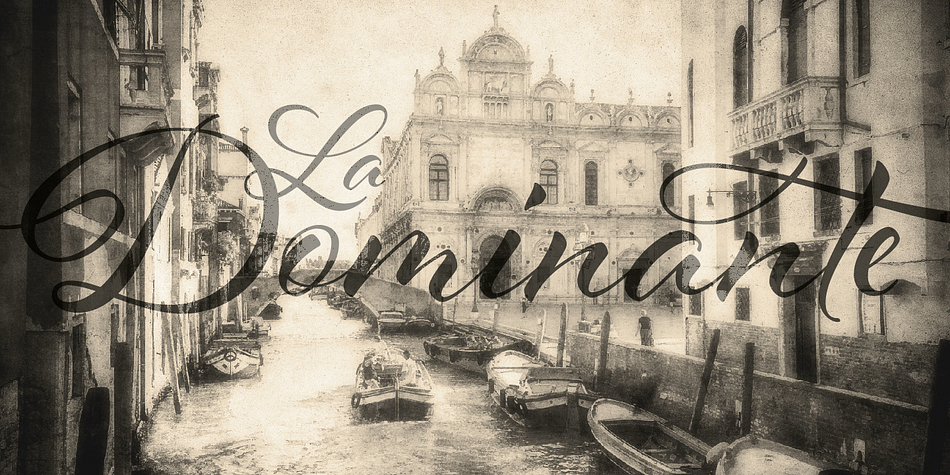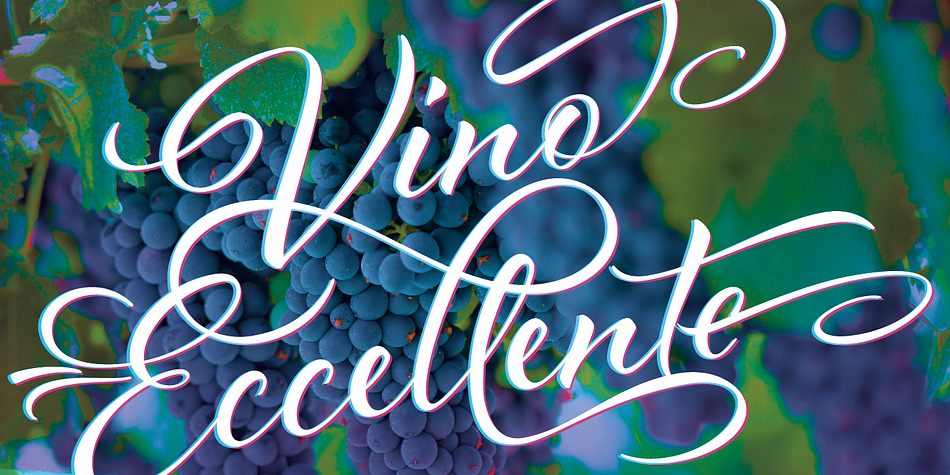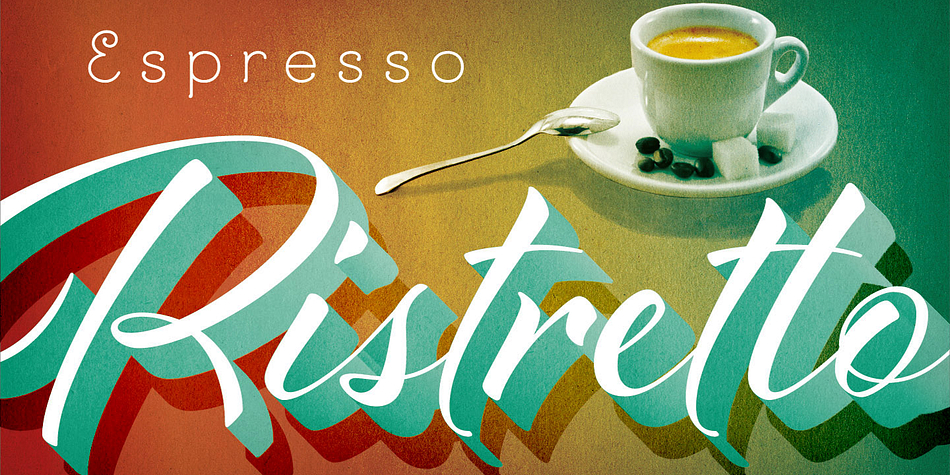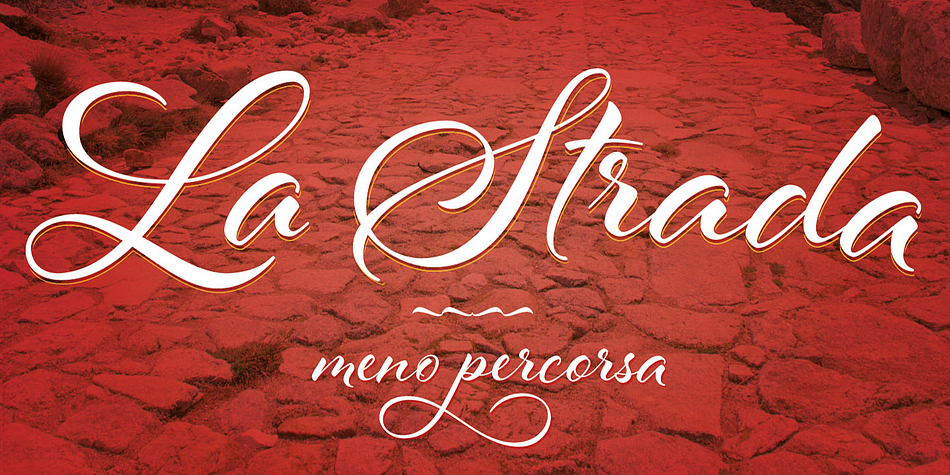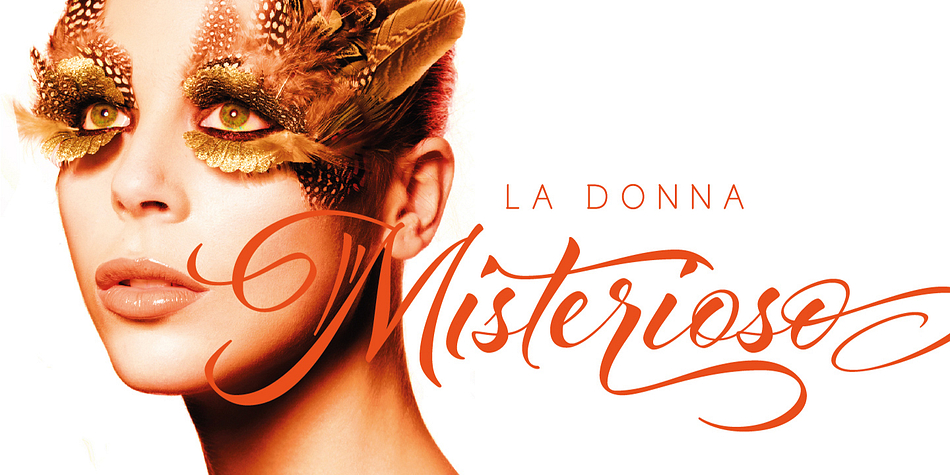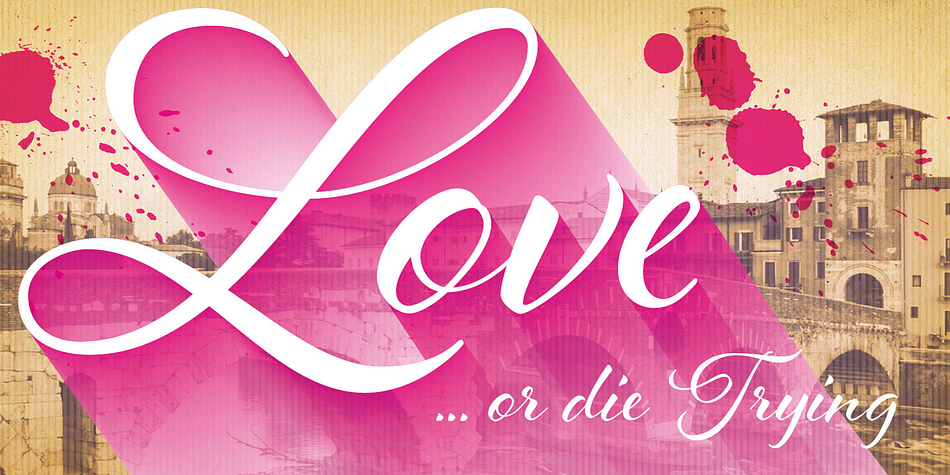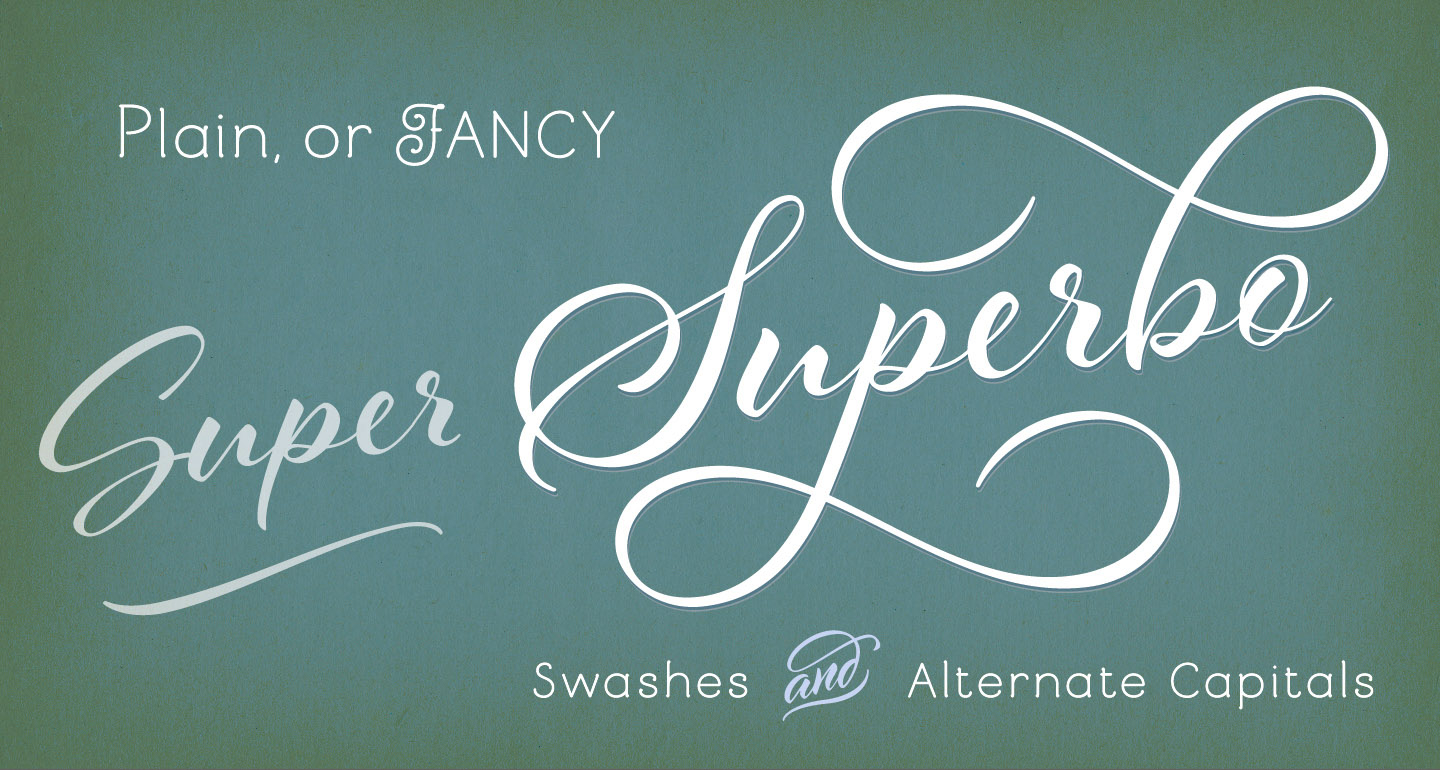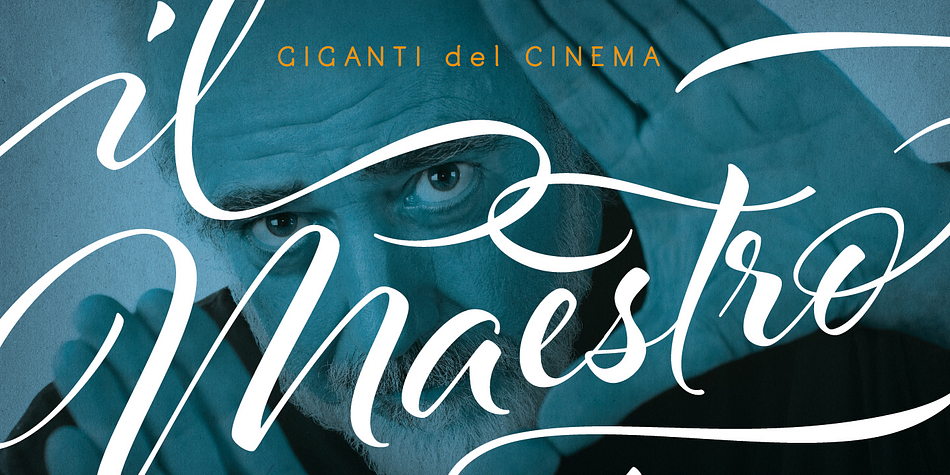
Al Fresco is a script and modern calligraphy font family. This typeface has two styles and was published by Laura Worthington.
Al Fresco is a breezy, light, yet expressive typeface perfect for packaging products and titling work that call for a youthful, delectable flair. Its elegance carries a subtle earthiness; its beauty is unconventional, both stylish and exuberant. Al Fresco is made even more versatile when titling is activated (in the OpenType palette,) served along with swash forms, contextual alternates, and ornaments to sweeten this tasty typeface.
As with my other type designs, Al Fresco doesn’t live in isolation, but evokes a special ambience, era, or lifestyle—in this case, an enviably carefree, chic, and organically trendsetting life, authentic and true to oneself and simply delicious. Naturally, each designer who uses my work filters it through their unique interpretation, imbuing the fonts with a wonderful array of results such as those found on menus, food packaging, branding for light colognes, or young, hip, clothing boutiques. Al Fresco was born in my imagination as an emblem of dining outside at twilight under twinkling lights, laughing warmly with friends, sipping signature cocktails and eating tapas—each bite dripping with intense flavor. In the workday setting, Al Fresco represents a style that is pretty but not dressy: swishy bright flowery skirts and cute little flats. “Business casual,” not cubicle prisoner. After all, Al Fresco comes from the 18th century Italian “in the fresh air.”
For those who are familiar with my Hummingbird typeface, Al Fresco has a more loose and unrestrained feel. I created it using faster strokes, and was unconcerned with convention. After the complexity of my Charcuteries family of typefaces, I longed for simplicity. I returned to simple tools: little felt brush pens with fixed tips, fun to use for practicing lettering. To loosen up after hours of intense design, I wanted to play with forms and tools that were refreshing and clean. Starting with the word “Irresistible,” I began filling pages with letters and words. While I usually start with lowercase letters, my initial focus with Al Fresco’s shape began with strong uppercase letters that set the tone for what I then realized would be my next typeface. While lowercase letters are used more frequently, making Al Fresco’s uppercase letters the focal point added an opportunity for variety and an unconventionality—it can’t really be attributed to any one style. That, in turn, colored the lowercase letters, allowing some “fresh air” into the design. Each word in a type specimen is distinctly different from the words alongside it. Each is a little bit unexpected.
Al Fresco, which includes a User’s Guide, makes ample use of Open Type features. If you activate titling, the loops have been removed from the lowercase ascenders and descenders, giving the typeface a cleaner aesthetic and more contemporary feel. This feature provides you with fonts that are almost a style within a style. 157 lowercase swash forms, 46 ligatures (most of which are purely decorative rather than functional), and 16 ornaments are the cherry on top—or in the case of Al Fresco, the marinated Spanish olive in your martini.
As often discovered in my work, there are always more treasures in the package. In this case, two additional sets of uppercase letters are included. When contextual alternates are activated, you’ll find that ending strokes have been minimized. (Software often turns these on by default.) This additional feature offers a more natural look, adding a slight randomness or quirkiness—a special touch that reveals the warmth and uniqueness of the human hand and mind.